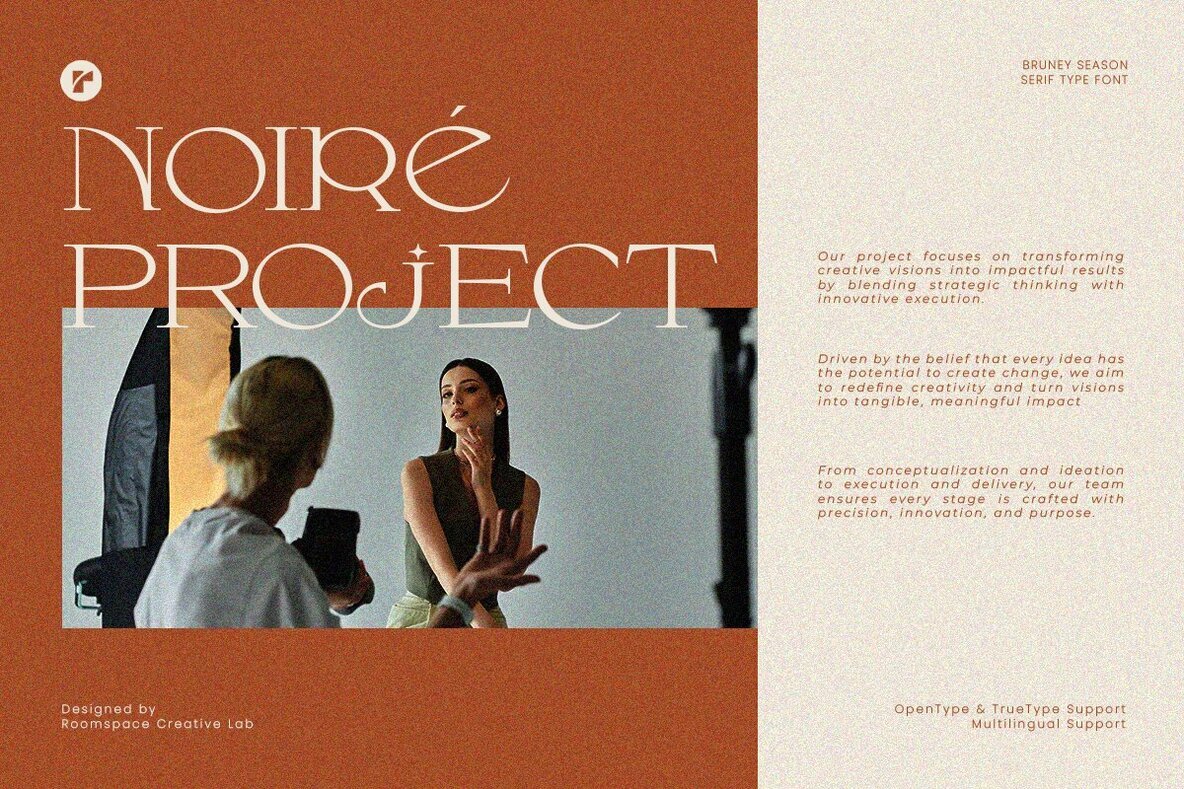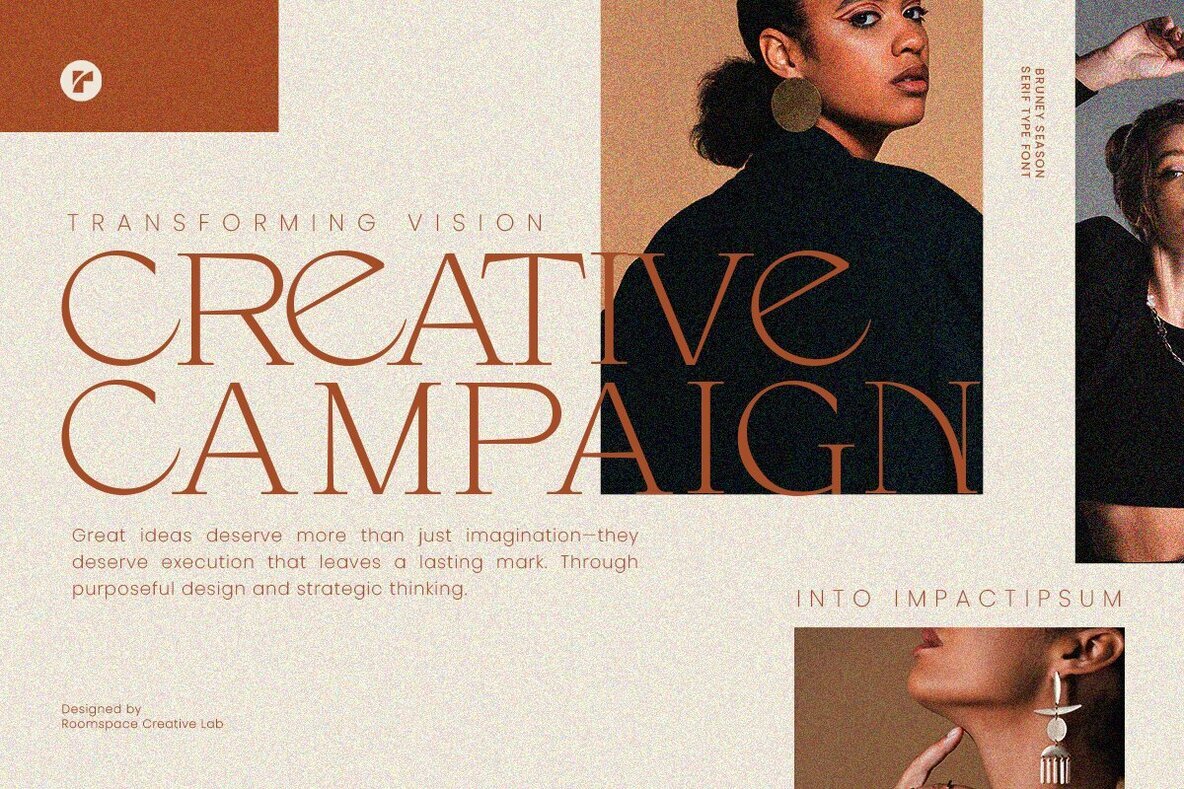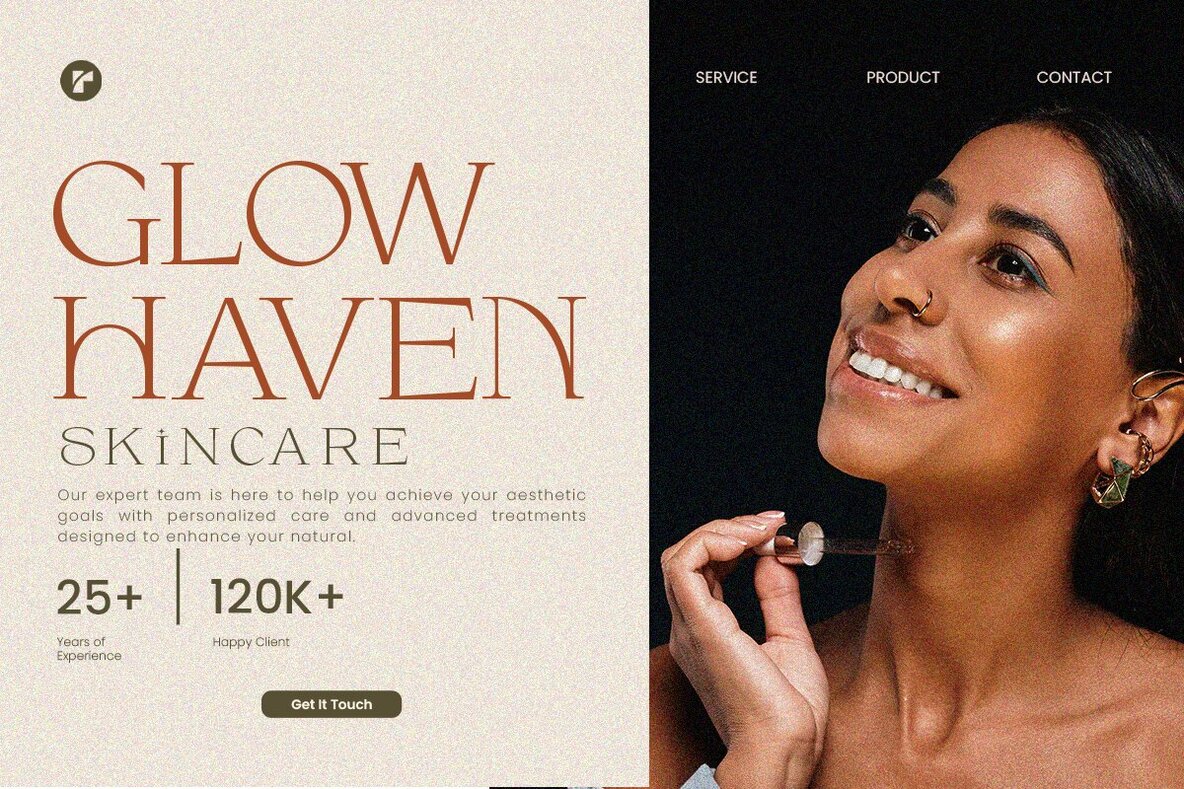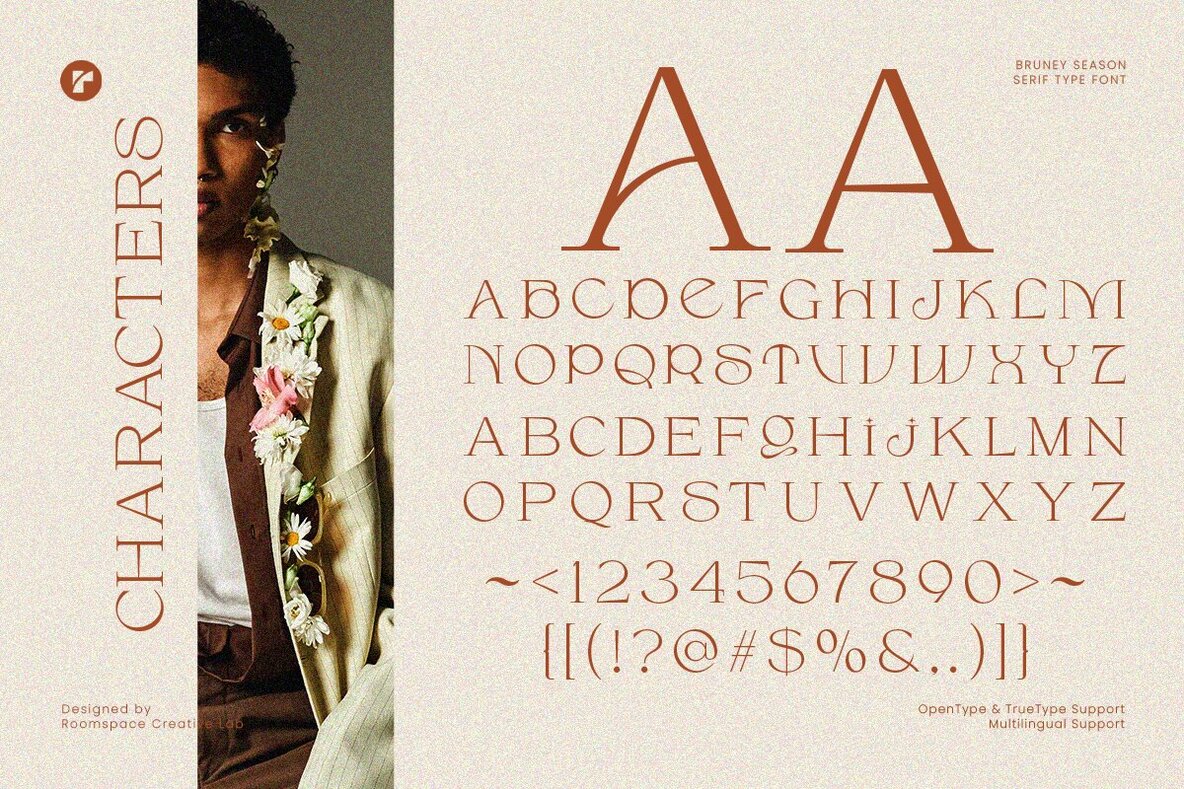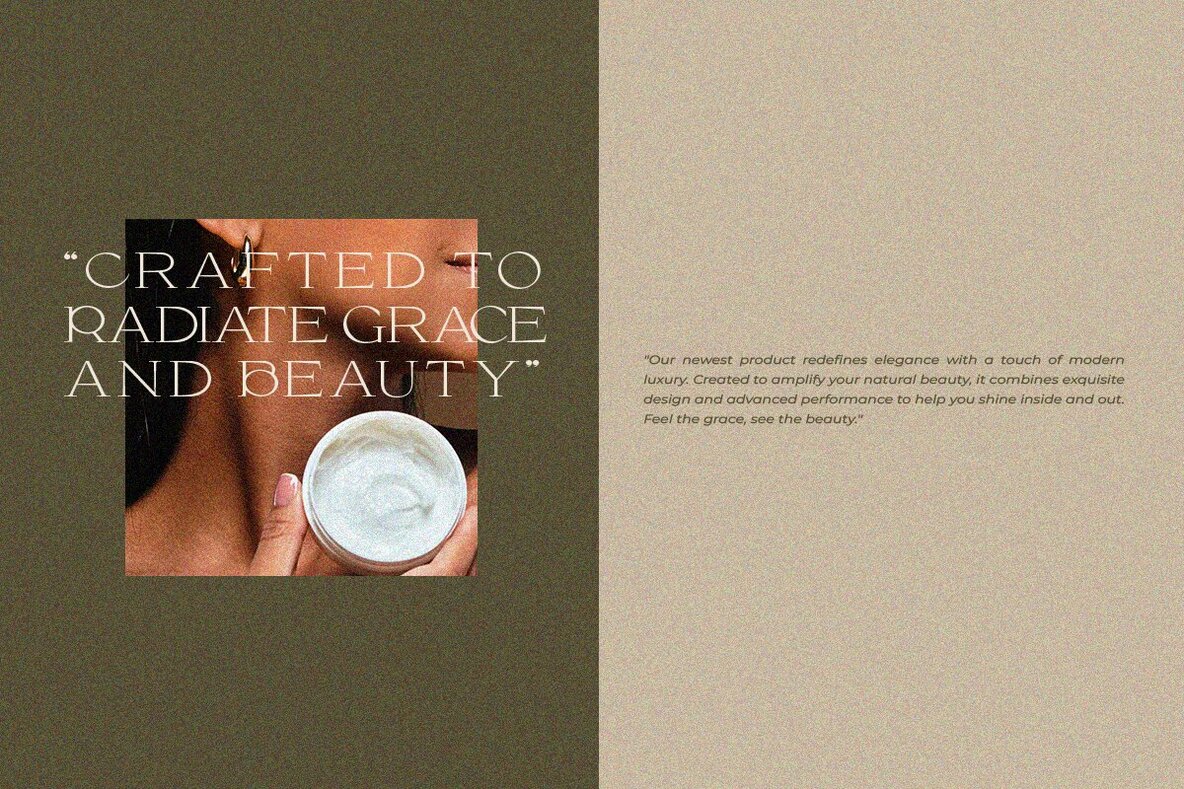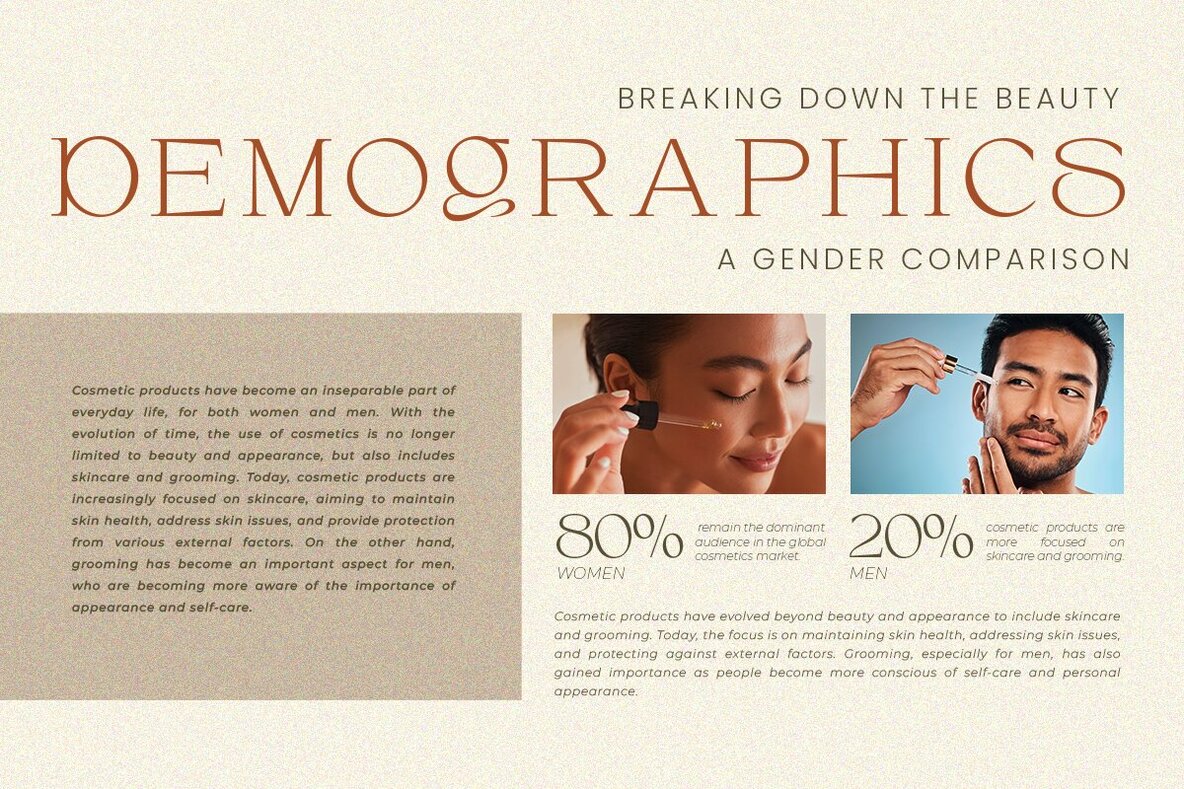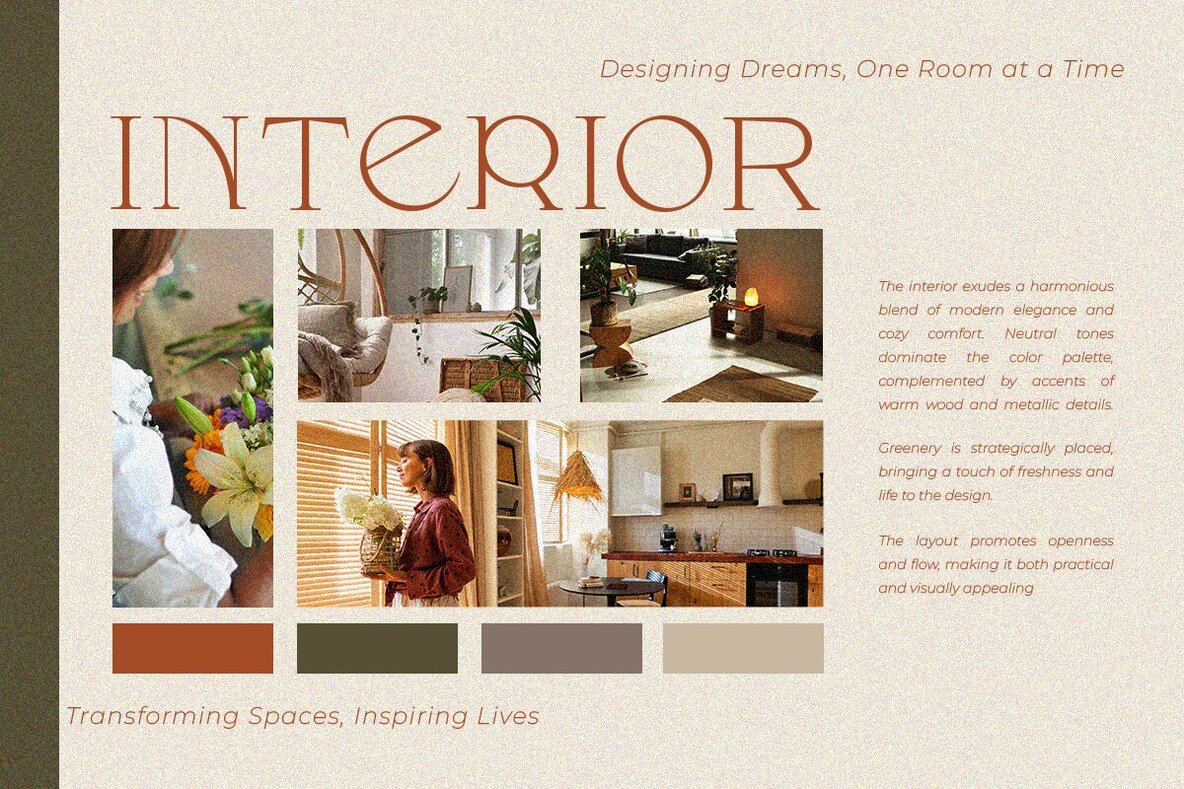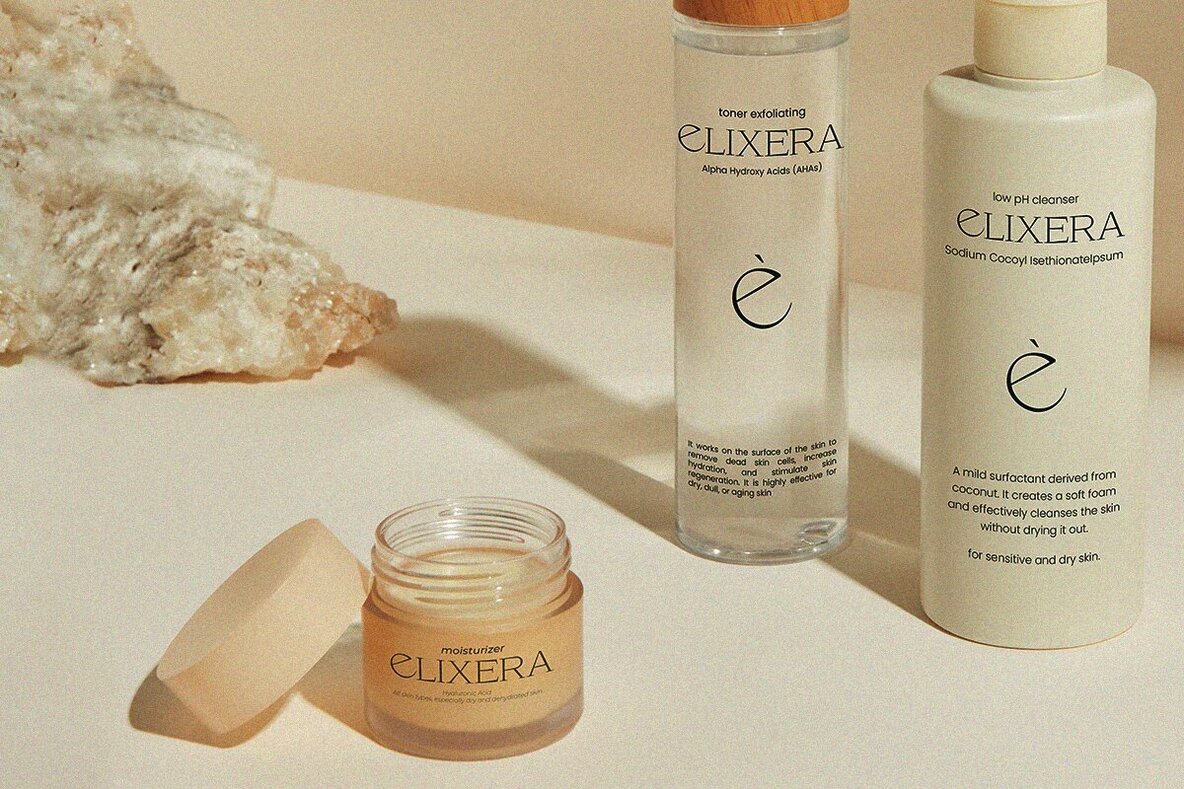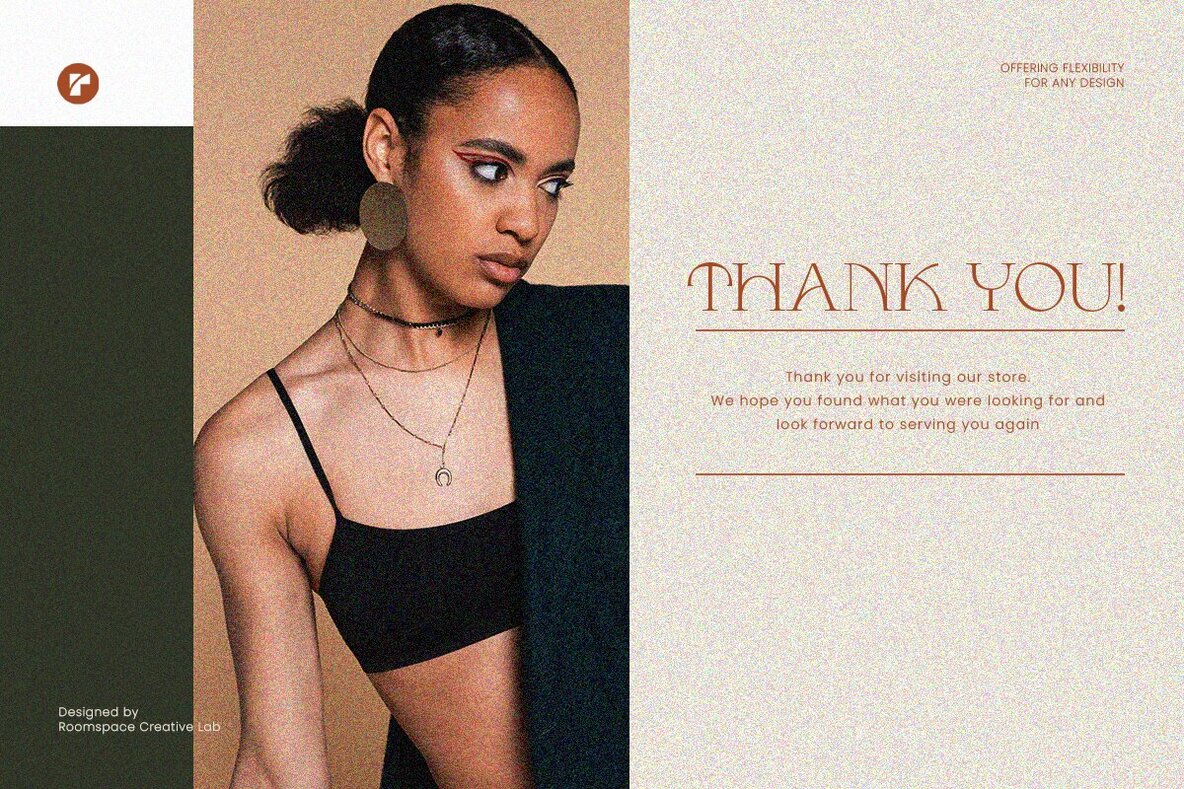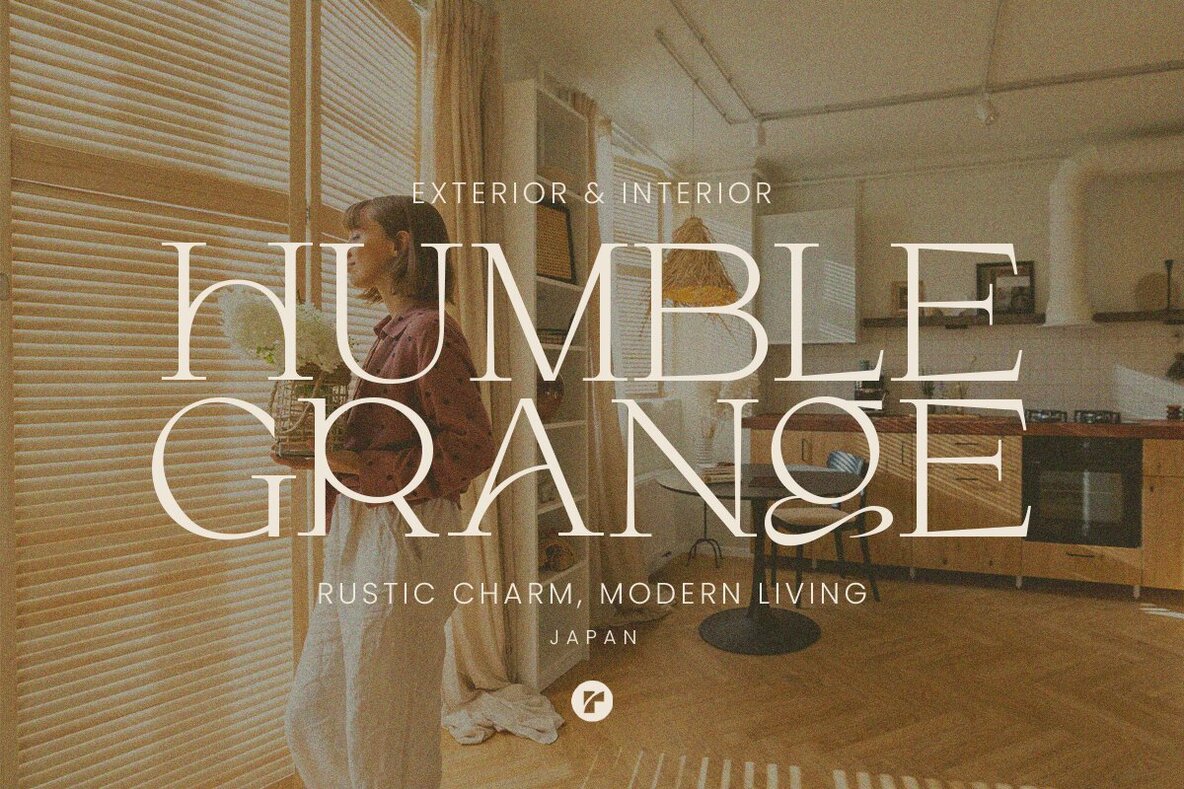
Bruney Seasons Font
Bruney Season Regular
Bruney Season is a captivating serif display font that elegantly balances timeless design with contemporary flair. This font is distinguished by its graceful curves and distinct letterforms, making it an ideal choice for high-end fashion branding, editorial design, wedding invitations, and sophisticated logos. This font is versatile and enhances a variety of creative projects with its luxurious style and unique typography elements.
With multilingual support and a wide range of international characters, Bruney Season is designed for seamless usage across diverse projects. Whether you are crafting bold logos or delicate wedding invitations, this font ensures a sophisticated aesthetic. Key features include elegant styling for fashion branding and editorial layouts and compatibility with both PC and Mac for straightforward installation.
Choose Bruney Season for its unique take on classic serif styles, offering both versatility and sophistication in design applications. It supports uppercase, lowercase, numbers, and punctuation, making it a comprehensive choice for diverse creative needs.